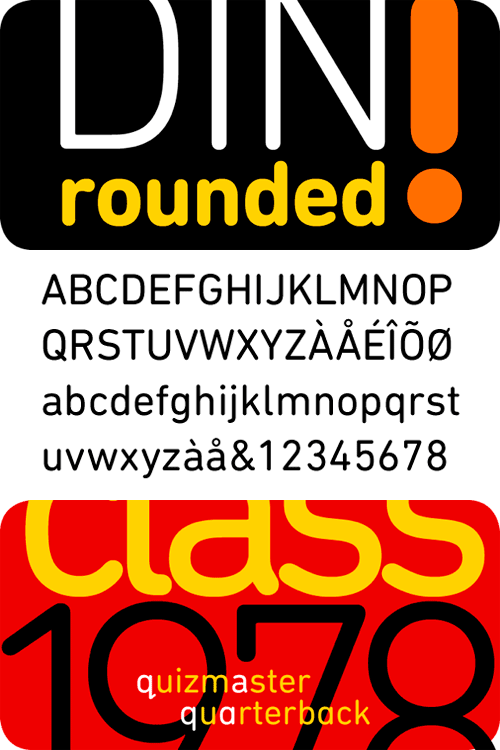
DIN Next Rounded Font Family
The name DIN refers to the Deutsches Institut für Normung (in English, the German Institute for Standardization). The typeface began life as the DIN Institute’s standard no. DIN 1451, published in 1931. It contained several models of standard alphabets for mechanically engraved lettering, hand-lettering, lettering stencils and printing types. These were to be used in the areas of signage, traffic signs, wayfinding, lettering on technical drawings and technical documentation. Rooted in earlier designs for Germany’s railway companies, the alphabets were based on geometric shapes in order to be easily reproducible using compass and ruler. In post-1945 West Germany, the DIN alphabets were widely used, for instance on most road signs. They became available as fonts that were appreciated by designers for their industrial, somewhat quirky and “non-typographic” look and feel. From the 1990s onwards, more refined versions became available for use in book and magazine typography. DIN Next is a typographically corrected and expanded version of this quintessential 20th-century design. DIN Next Rounded is its softer, friendlier version.